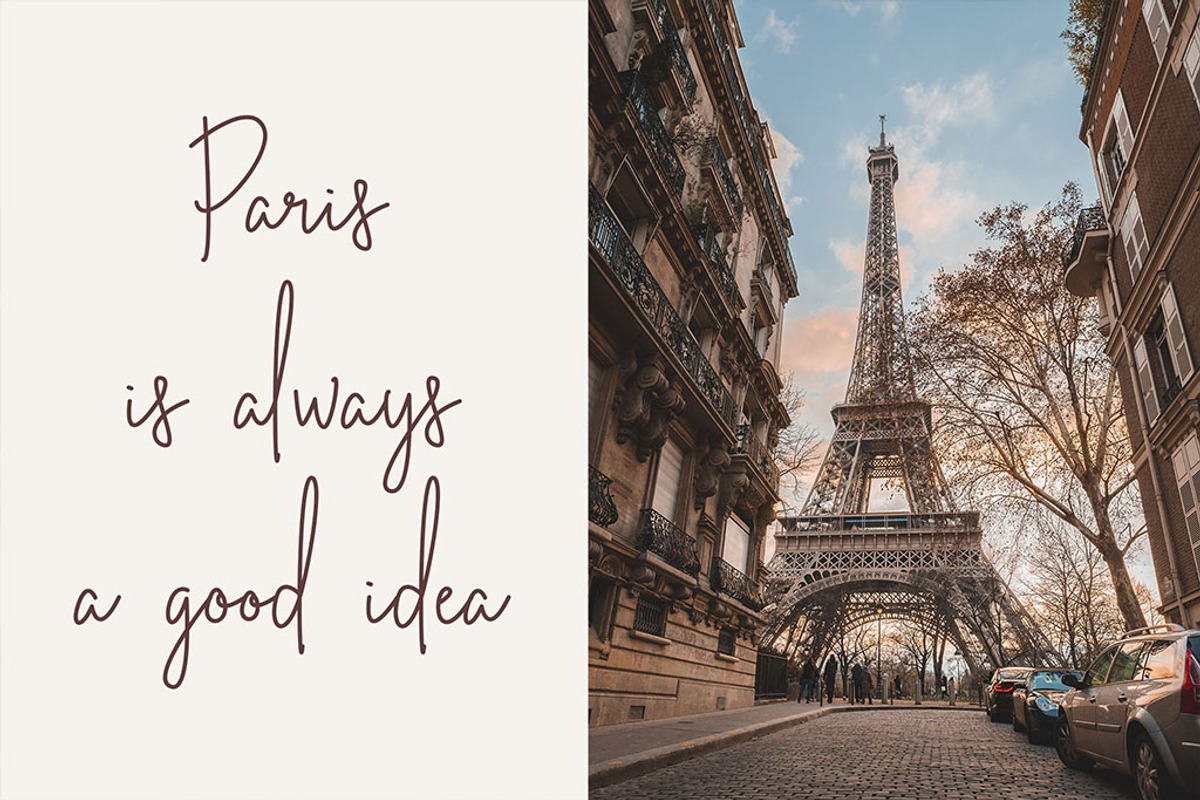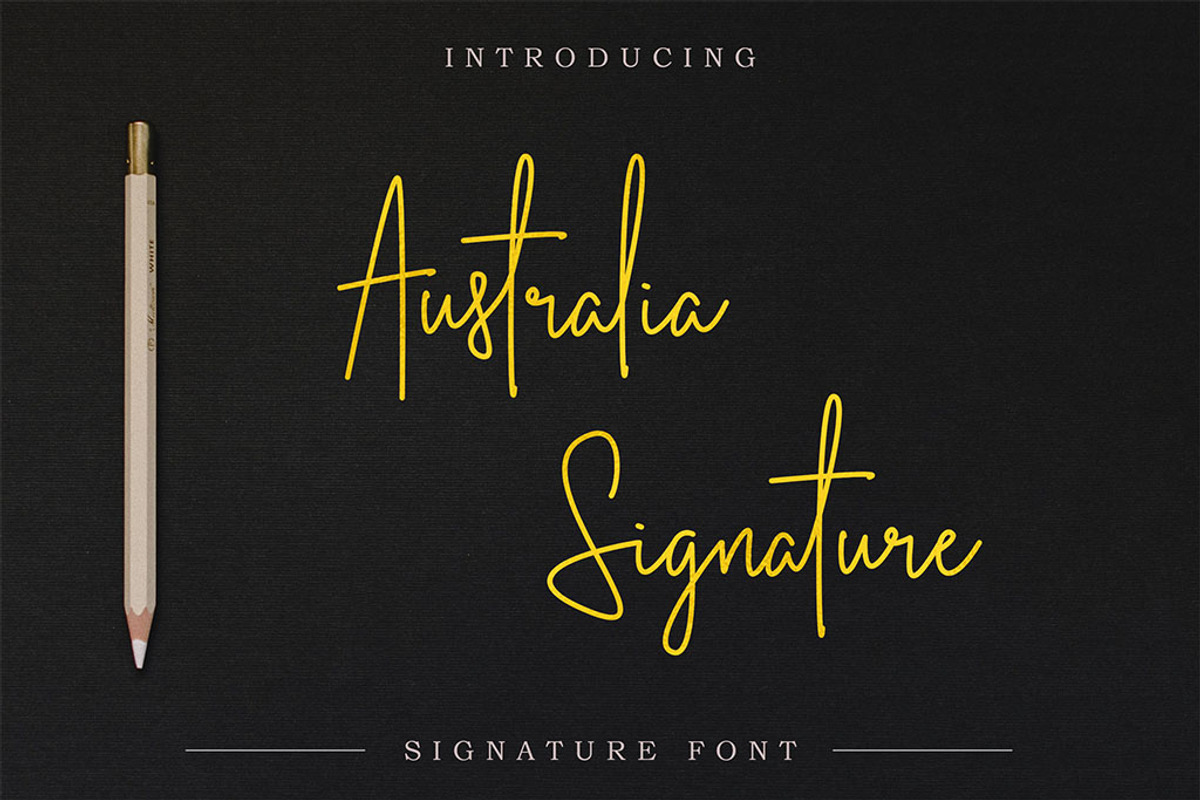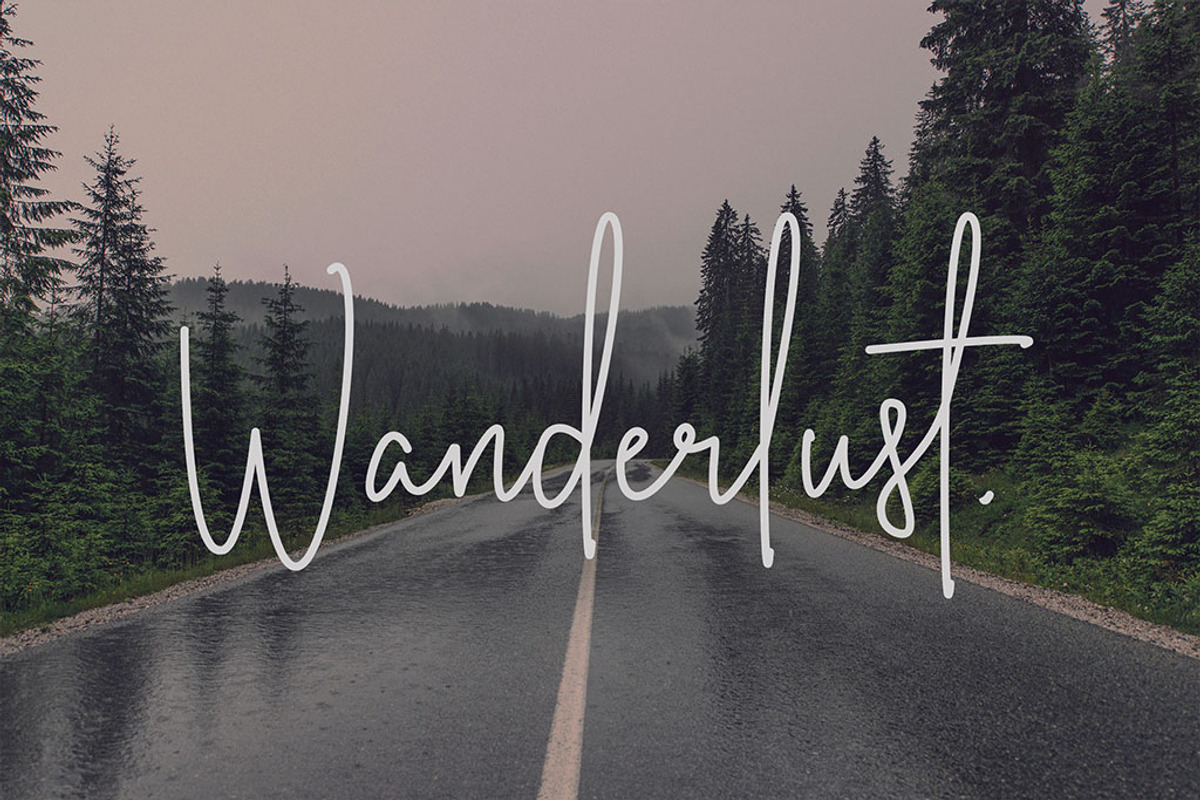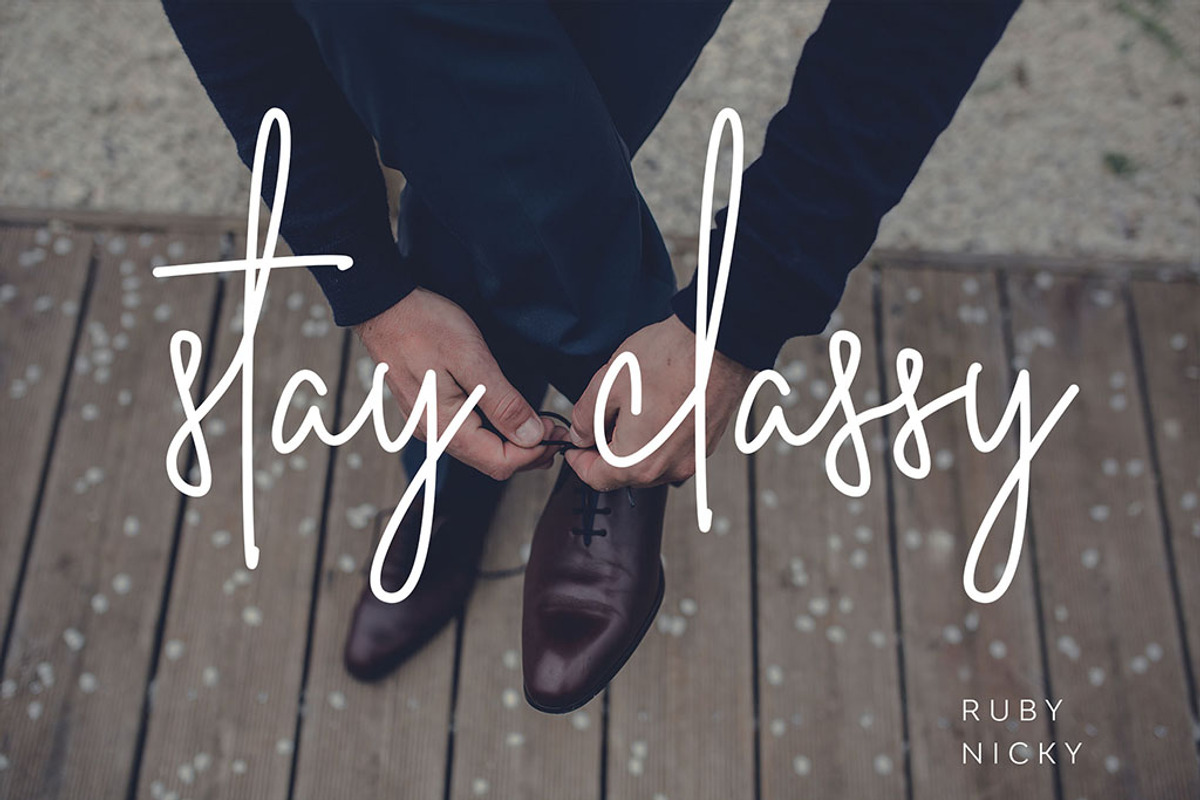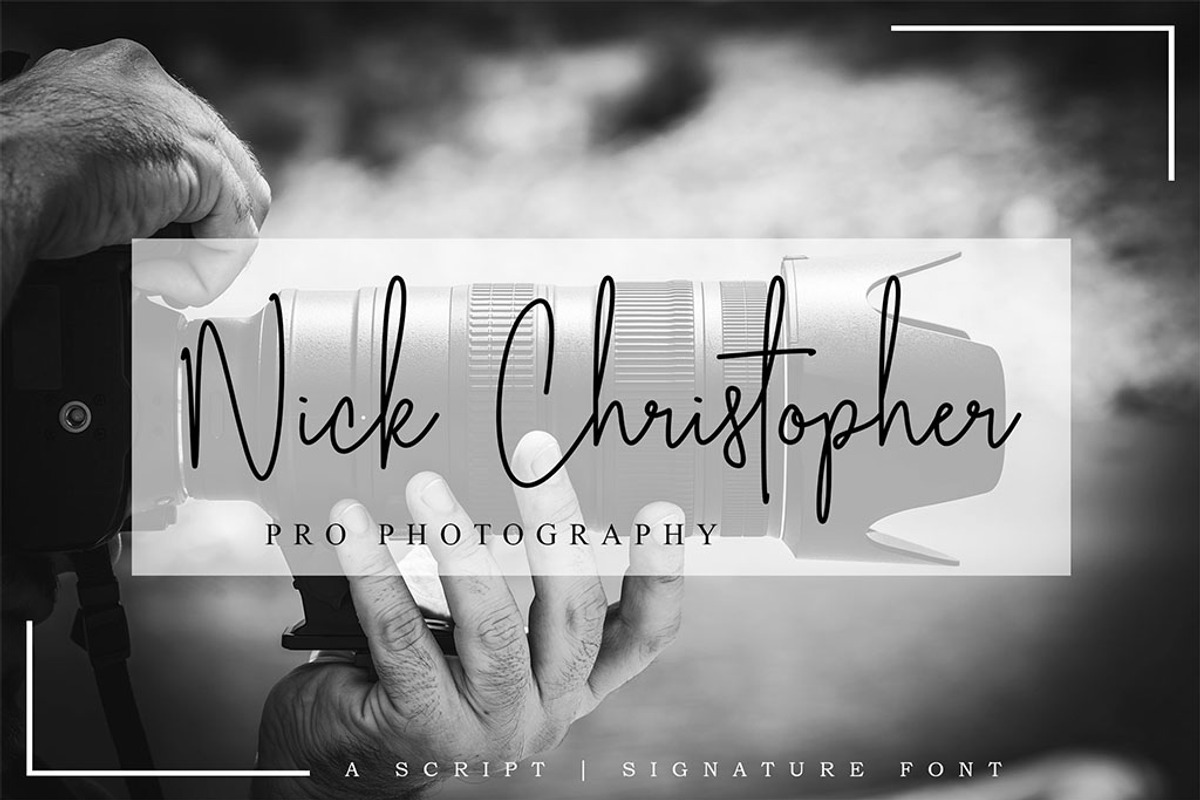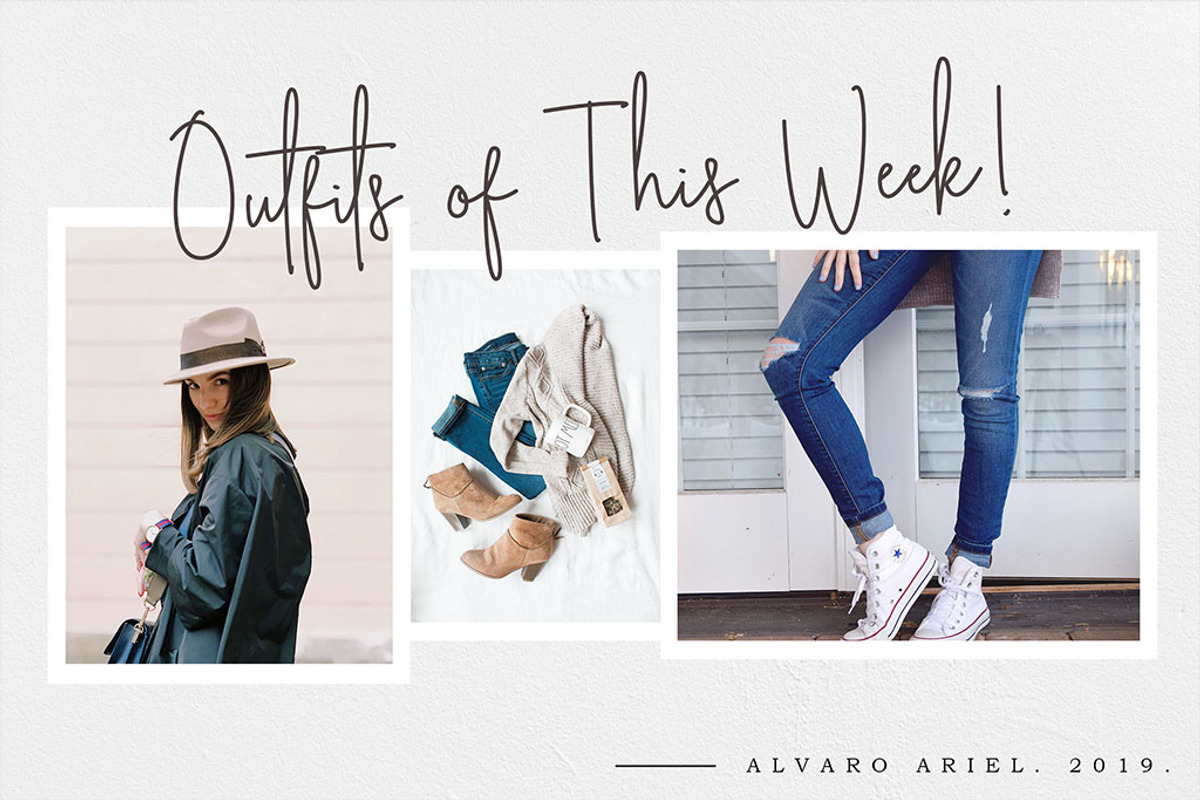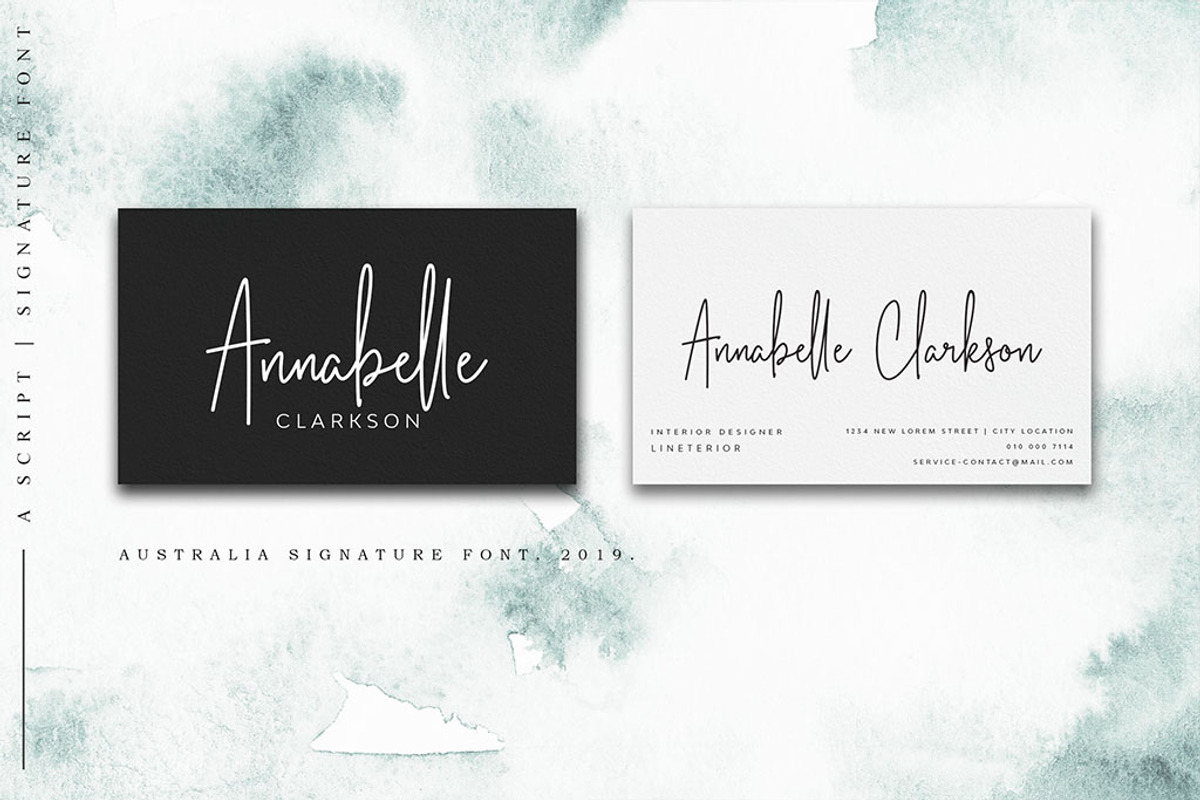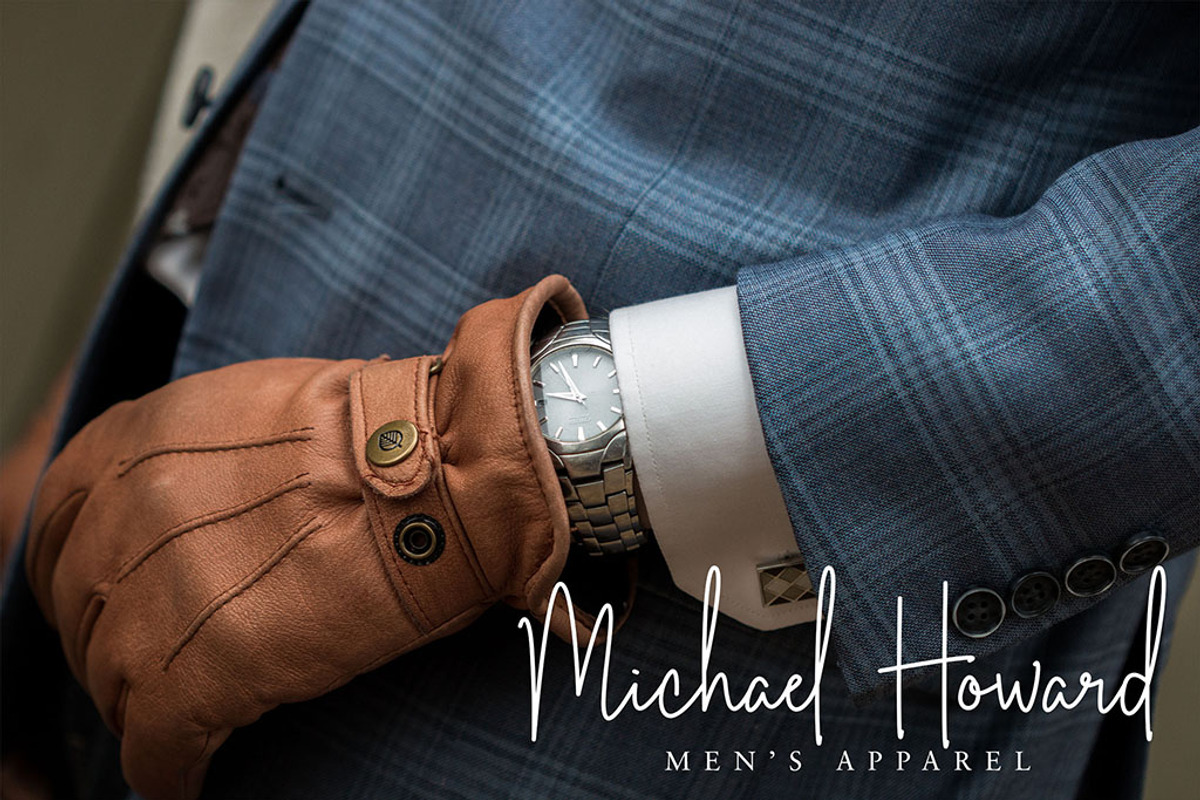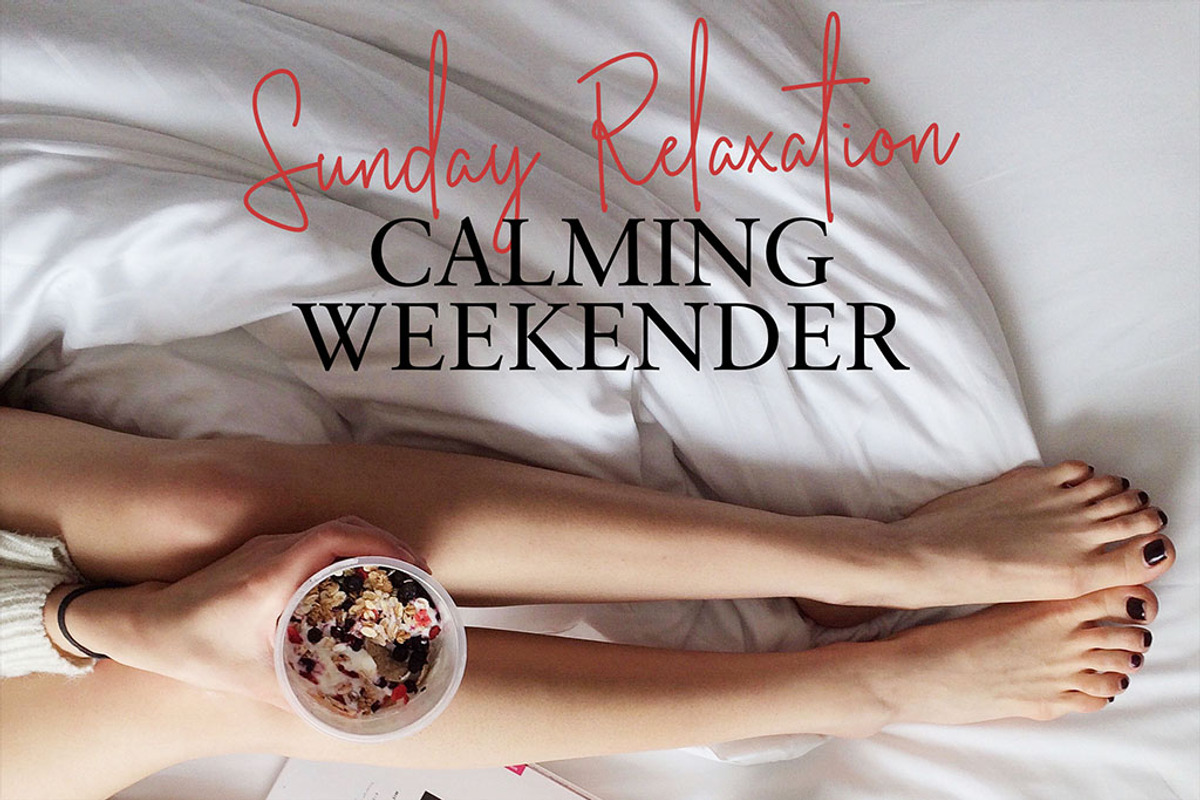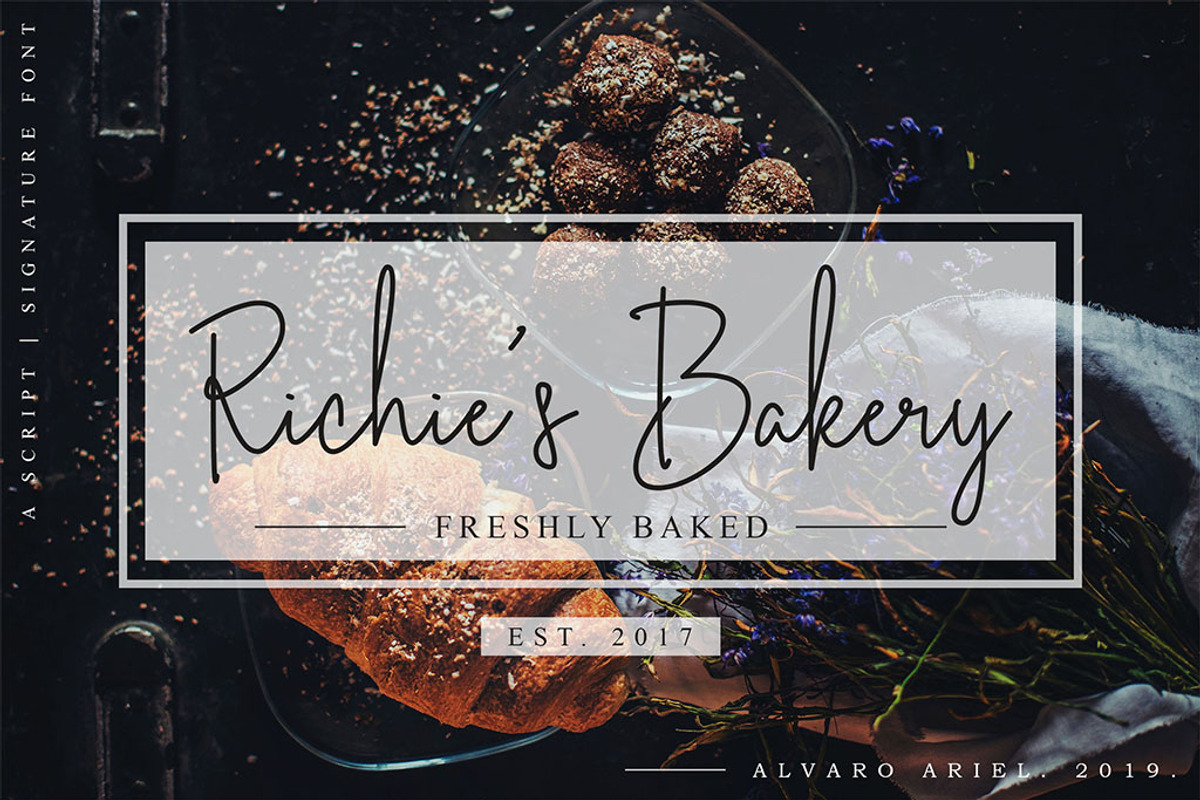
Australia Signature Font
Introducing the Australia Signature script font. A simple signature script font with a beautiful & luxury flow. This font contains uppercase, lowercase, numbers, symbols, including multilingual support and ligature.
Australia Signature is perfect for invitation, logos, product designs, label, photography, watermark, branding projects, social media posts, wedding designs, and any design that require a signature style font.
- Multilingual Support: Afrikaans, Danish, Dutch, French, German, Indonesian, Irish, Italian, Norwegian, Portuguese, Romansh, Scottish, Spanish, and Swedish.